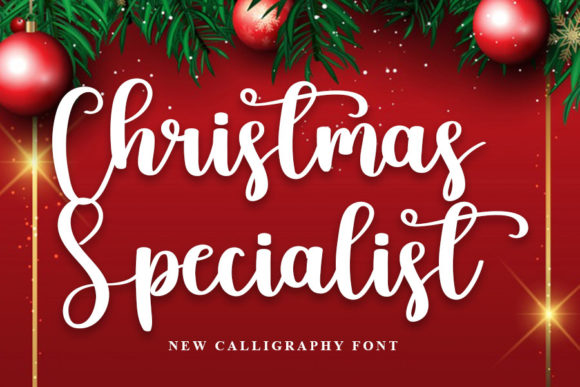
Prepare to fall head over heels for Christmas Specialist, the enchanting script font that will transform your designs into breathtaking works of art. This meticulously crafted font exudes elegance and sophistication, captivating the hearts of designers and typography enthusiasts alike. Each character has been designed with utmost care and precision, showcasing intricate details and flowing curves that dance across the page.
Indulge in the versatility of Christmas Specialist, a font that seamlessly adapts to a myriad of design concepts. Whether you're crafting logos that demand attention, designing invitations that evoke a sense of occasion, or creating social media posts that stand out from the crowd, Christmas Specialist will elevate your creations to new heights. Its graceful lines and enchanting charm are guaranteed to leave a lasting impression on your audience.
Unleash your imagination and immerse yourself in a world of creative possibilities with Christmas Specialist. Its timeless appeal and boundless versatility make it the perfect choice for designers seeking to add a touch of magic to their work. Embrace the power of Christmas Specialist and watch your designs blossom into extraordinary masterpieces.